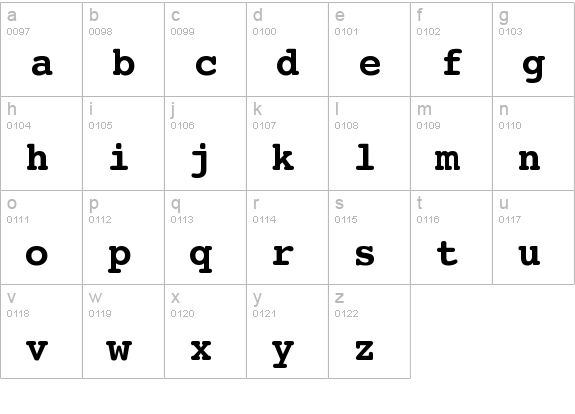
HI Kakuhihewa Bold is a strong, high-contrast variant in the HI typeface family \xE2\x80\x94 well suited to headlines, attention-grabbing titles, and strong calls-to-action.
The HI Kakuhihewa Bold font is a striking and versatile typeface that exudes strength and modernity. Its bold and sleek design makes it perfect for making a bold statement in various design projects. Whether you're creating eye-catching headlines, posters, logos, or branding materials, this font will surely command attention and leave a lasting impression. What’s even better is that the HI Kakuhihewa Bold font is available for free download at FontsMarket.com. You can easily access this unique and stylish font to elevate your designs without any cost. Don't miss out on the opportunity to enhance your creative projects with this exceptional font that is both impactful and free to use. Download HI Kakuhihewa Bold font now and unleash your creativity!